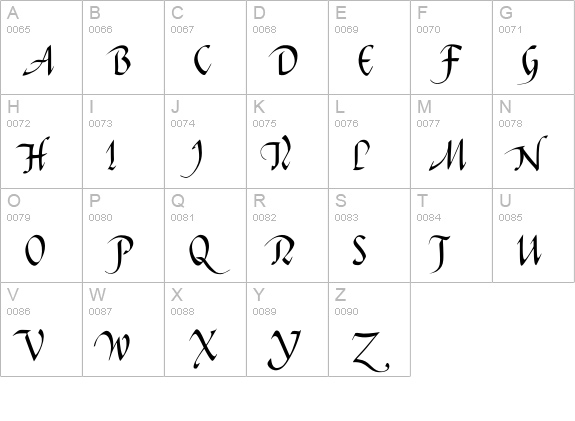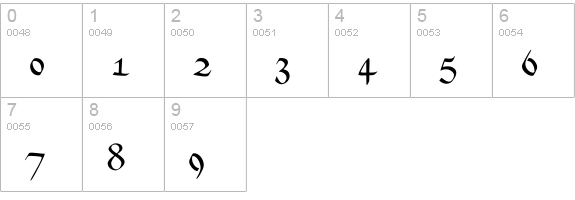
Flourish Font Details
Flourish font is a beautifully crafted typeface that exudes elegance and sophistication. Its intricate flourishes and delicate details add a touch of charm and grace to any design project. The flowing lines and graceful curves of Flourish font make it perfect for wedding invitations, greeting cards, and other special occasions. This versatile font is sure to elevate your designs and create a lasting impression. What's even better is that Flourish font is available for free download at FontsMarket.com. So go ahead and add this stunning typeface to your collection today and let your creativity flourish with Flourish font.